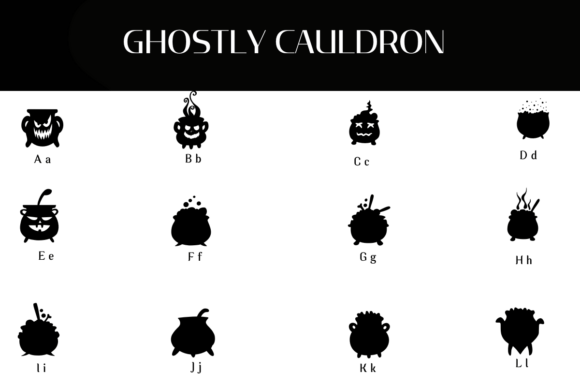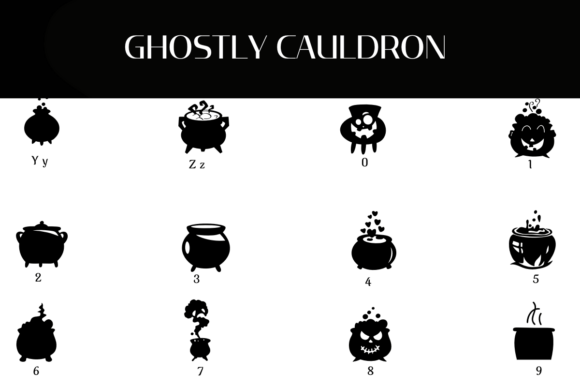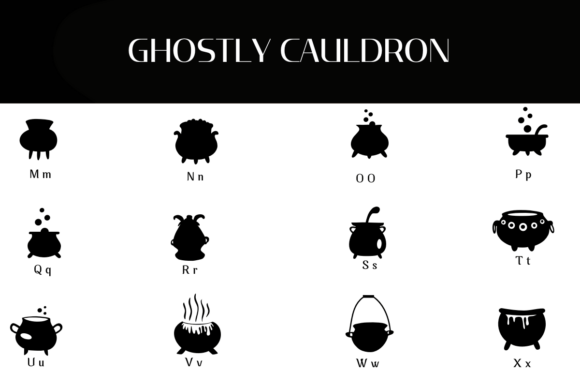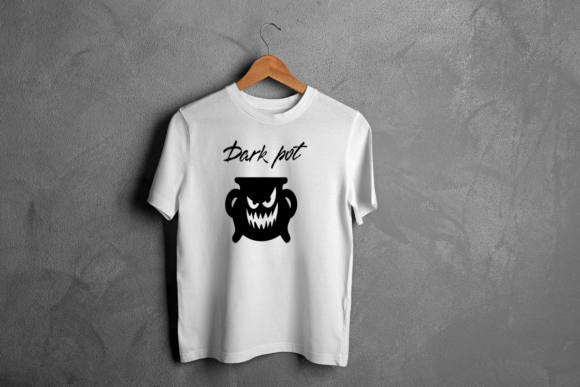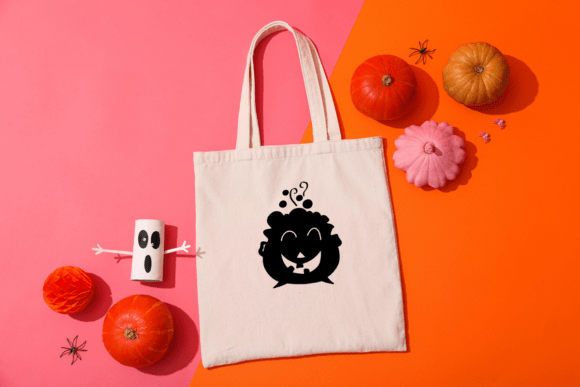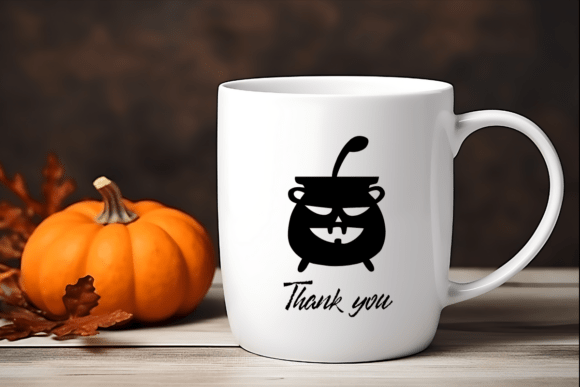
Get Ready to Stir Up Some Spooky Creativity
As the witching hour approaches and the nights grow darker, designers are no doubt itching to tap into their creative cauldrons and brew up something magical. Whether you’re conjuring up Halloween-themed graphics, potion labels, or witchcraft-inspired illustrations, the right font can make all the difference.
Enter the Ghostly Caldron Font, a bewitching dingbat font that’s bursting with a wide variety of creepy, cute, and whimsical cauldron silhouettes. This enchanting font is perfect for adding a bubbling touch of mischief to any design, making it a valuable addition to any designer’s toolkit. With the Ghostly Caldron Font, you’ll be able to conjure up spellbinding graphics that are sure to cast a spell on your audience.
Ghostly Caldron Font Key Features
- Unique Characteristics: The Ghostly Caldron Font features a unique, mystical design with intricate details and a hauntingly beautiful aesthetic.
Ghostly Caldron Font Review
Overall, I think Ghostly Caldron Font is a unique and intriguing choice for designers. ✨ Its eerie, mystical vibe is perfect for projects that need a touch of the unknown. The font’s bold lines and curves add a sense of drama and tension, making it great for horror-themed projects or anything that requires a sense of foreboding.
Here are some of the things I like about Ghostly Caldron Font: ✨
- Uniqueness: Ghostly Caldron Font stands out from the crowd, making it a great choice for designers who want to add a touch of personality to their projects.
- Expressiveness: The font’s bold lines and curves make it perfect for conveying emotions and adding drama to text.
- Flexibility: Ghostly Caldron Font is suitable for a wide range of projects, from horror-themed projects to mystical and spiritual projects.
- Readability: While the font is great for conveying emotions and adding drama, it can be difficult to read at small font sizes.
- Lack of versatility: While Ghostly Caldron Font is suitable for a wide range of projects, it may not be the best choice for projects that require a more neutral or straightforward tone.
Overall, I think Ghostly Caldron Font is a great choice for designers who want to add a touch of personality and drama to their projects. With its unique look and expressiveness, it’s perfect for projects that require a sense of mystery and foreboding.
For the best results, use the Ghostly Caldron Font in designs that require a mysterious or magical atmosphere.
- Use it for titles, headings, or quotes in fantasy-themed designs.
- Combine it with other fonts to create a unique and eye-catching typography.
- Experiment with different font sizes and colors to create a dramatic effect.